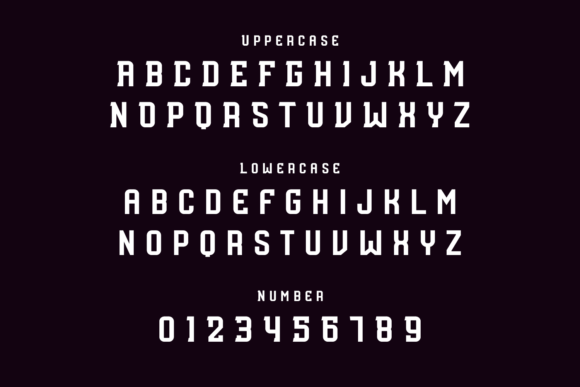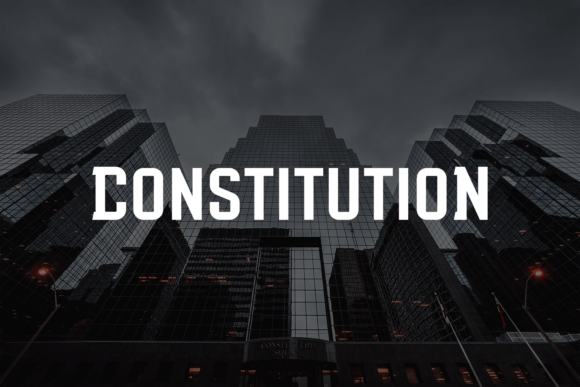
Introduction to Ripoda Font
Have you ever found yourself staring at a blank page, desperate for the perfect font to bring your creative project to life? The search for that elusive design resource can be a daunting task, but what if I told you that you’ve just found your new go-to? Meet the Ripoda Font, a fun and unique display font that’s sure to elevate any creation.
Whether you’re a seasoned designer or just starting out, the Ripoda Font is a valuable addition to your library. Its high-quality design and versatility make it the perfect choice for any project, from eye-catching headlines to social media graphics. And the best part? It’s available for a free download, making it an accessible design resource for everyone.
Key Features of Ripoda Font
- Open-source font with a wide range of characters and glyphs
- Supports various languages and scripts, making it a versatile design resource
- Unique, handcrafted design that adds a touch of elegance to any creative project
Honest Review: Ripoda Font
As a designer, I’m always on the lookout for high-quality design resources to elevate my creative projects. Recently, I had the chance to work with the Ripoda Font, and I’m excited to share my honest review.
What works well: ✨ The Ripoda Font is incredibly versatile, making it perfect for a wide range of design applications. The font’s clean and modern aesthetic is sure to complement any creative project. I particularly appreciated the transparent background option, which made it easy to integrate with my existing design elements.
- Works well for various design applications
Limitations: ⚠️ While the Ripoda Font is a solid choice, I did encounter some minor limitations. The font’s character set is not as extensive as some other fonts I’ve worked with, and it’s not suitable for complex text-heavy designs.
Overall, I’m impressed with the Ripoda Font’s potential and would recommend it for designers looking for a high-quality, free design resource. With a little creativity, this font can help elevate your next creative project.
Tips for Getting the Most Out of Ripoda Font
For the best results, use Ripoda Font with a transparent background to create a seamless design. Experiment with different font sizes and styles to find the perfect fit for your project.
Ripoda Font is ideal for various design projects, including logos, business cards, brochures, and website headers. Its versatility makes it a valuable asset for any designer looking to elevate their creative work.